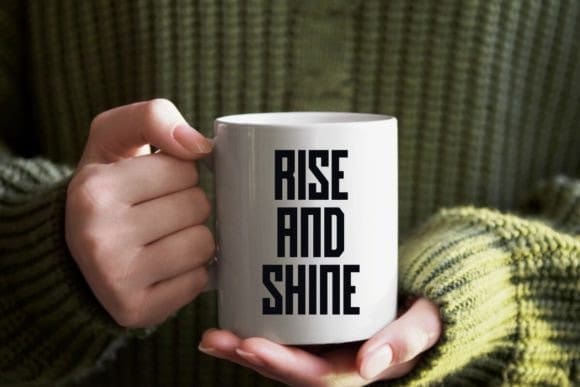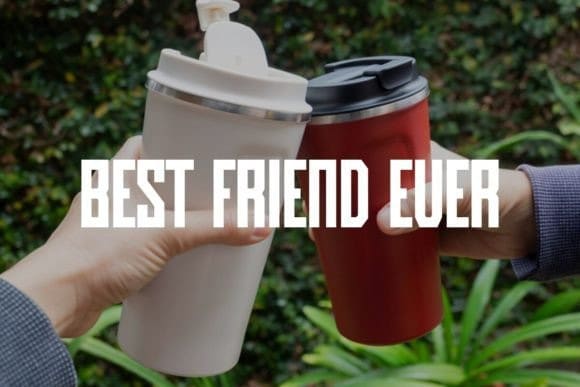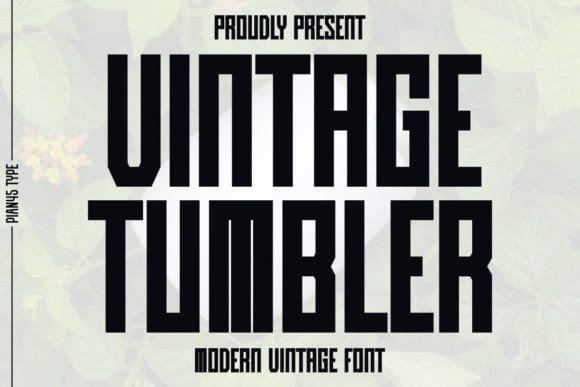
Vintage Tumbler Font
Vintage Tumbler Font is a modern clean and classic sans serif font with a vintage touch. With its timeless and elegant aesthetic, this font brings a sense of nostalgia to any design. Perfect for striking posters, quotes, backgrounds, trendy t-shirts, stylish mugs, tumblers and tote bags.